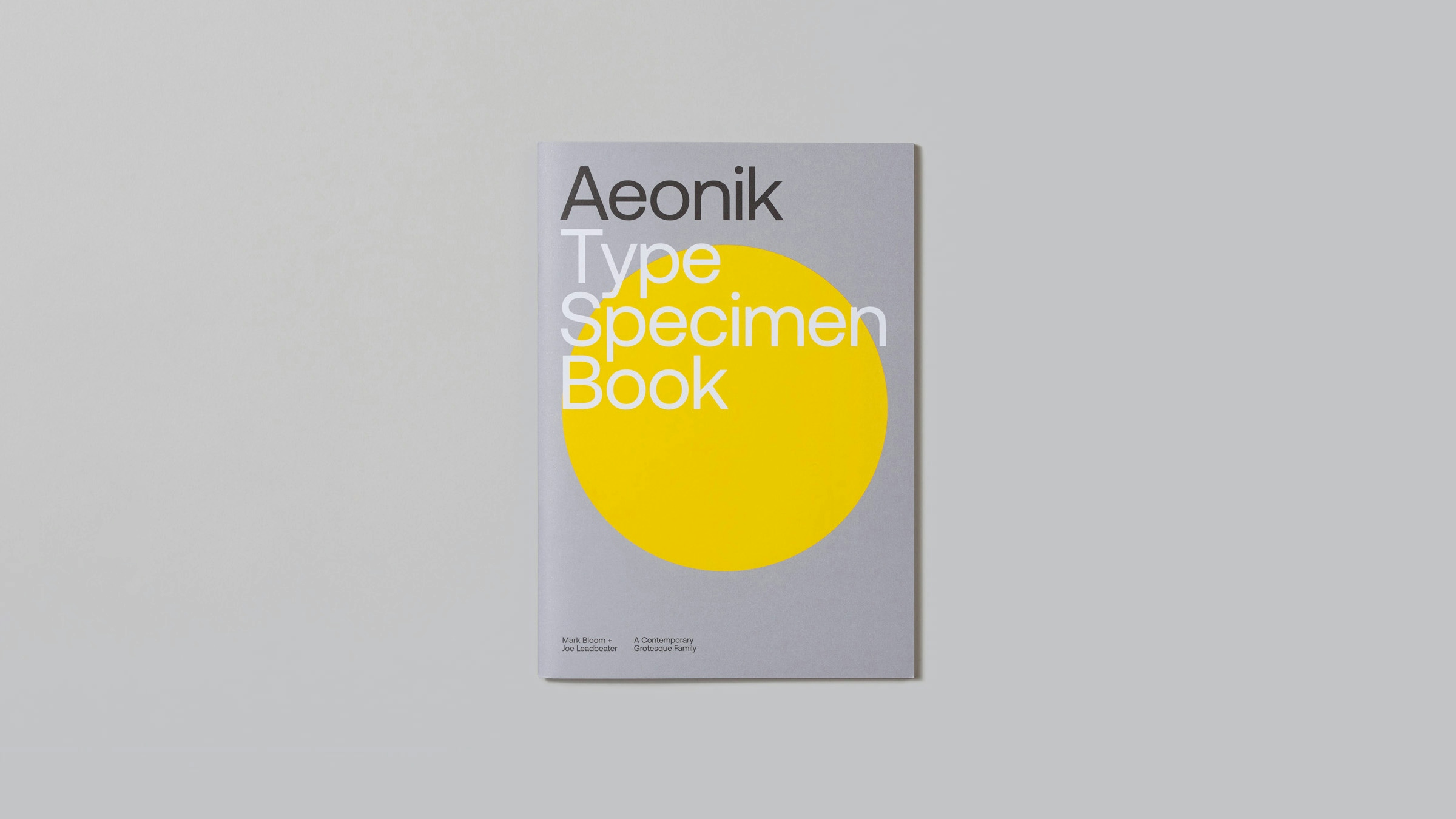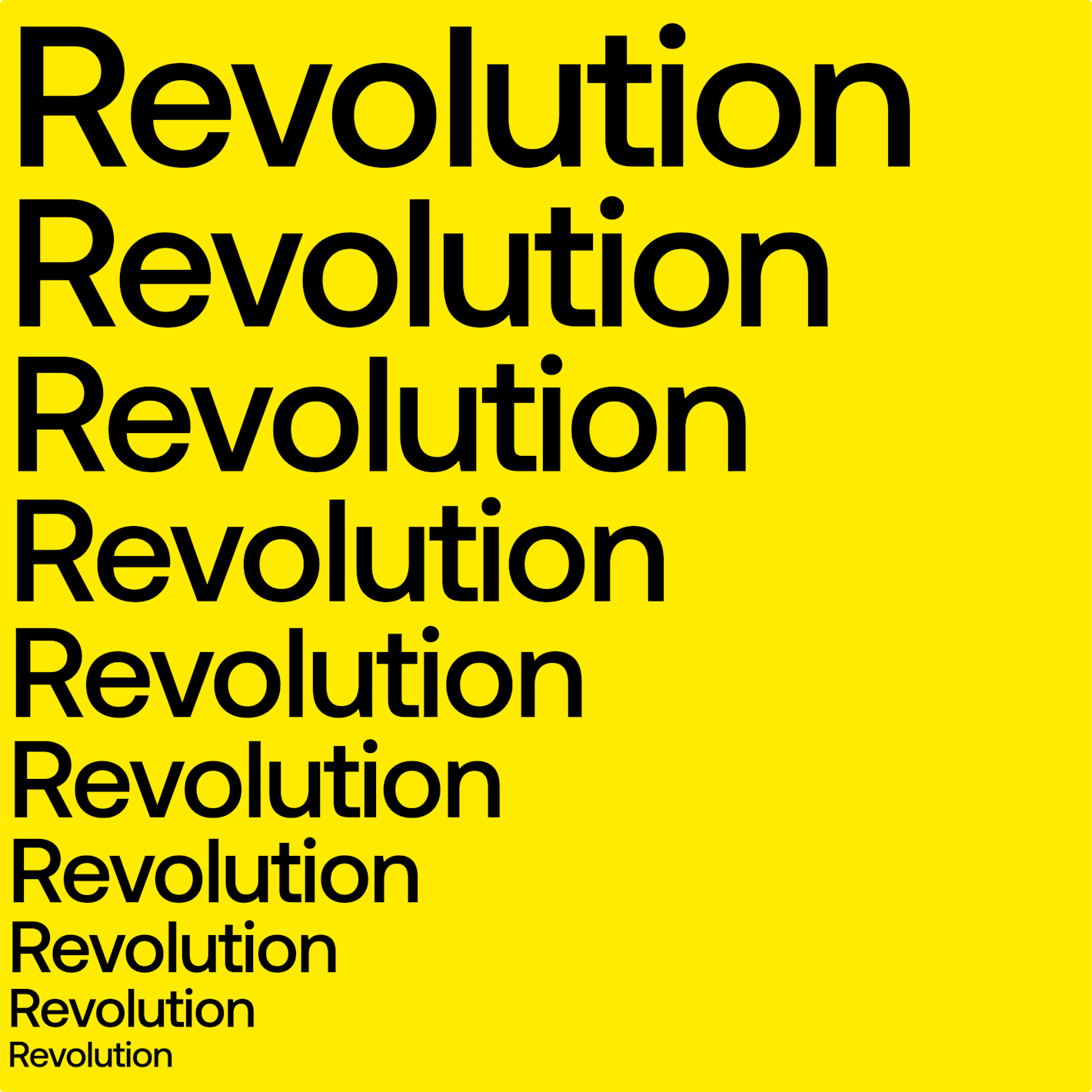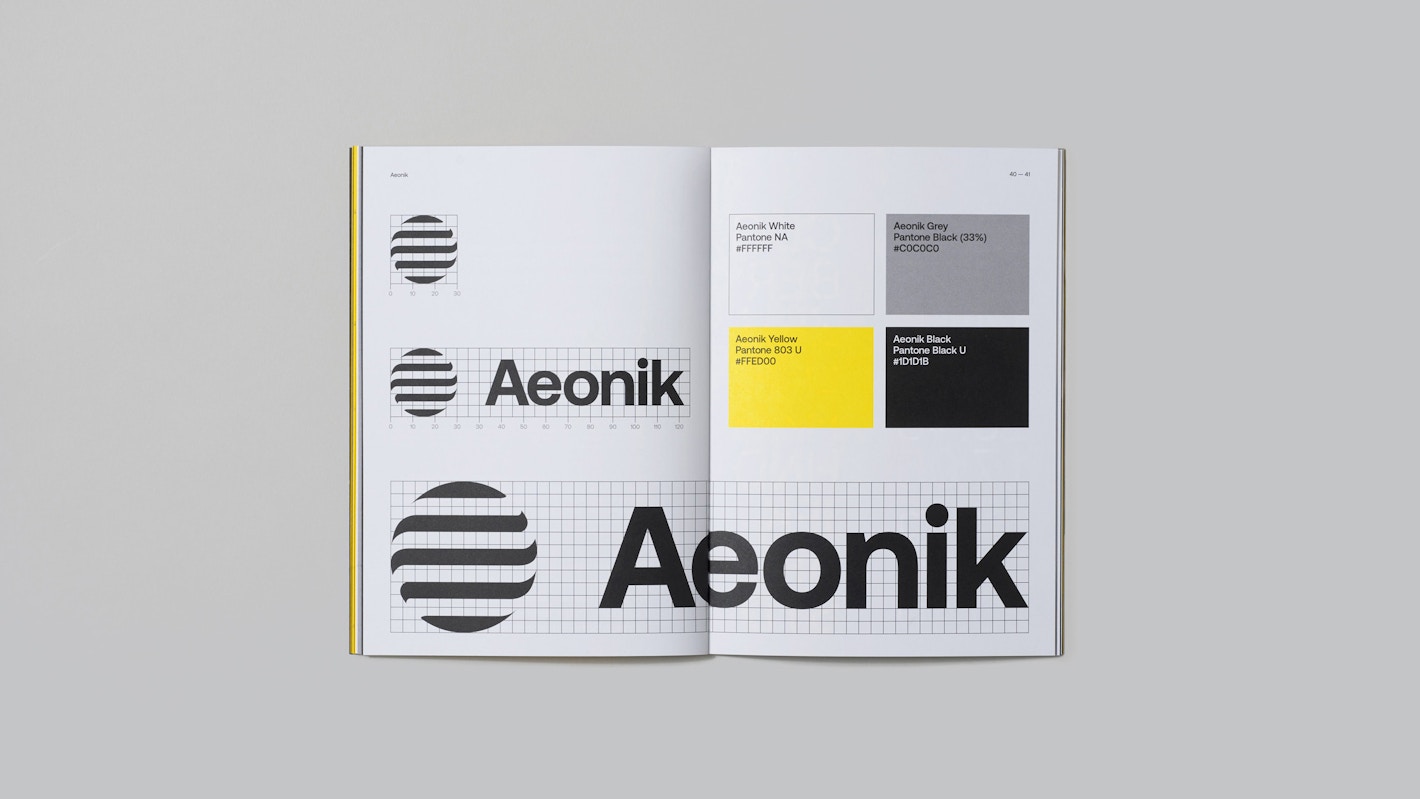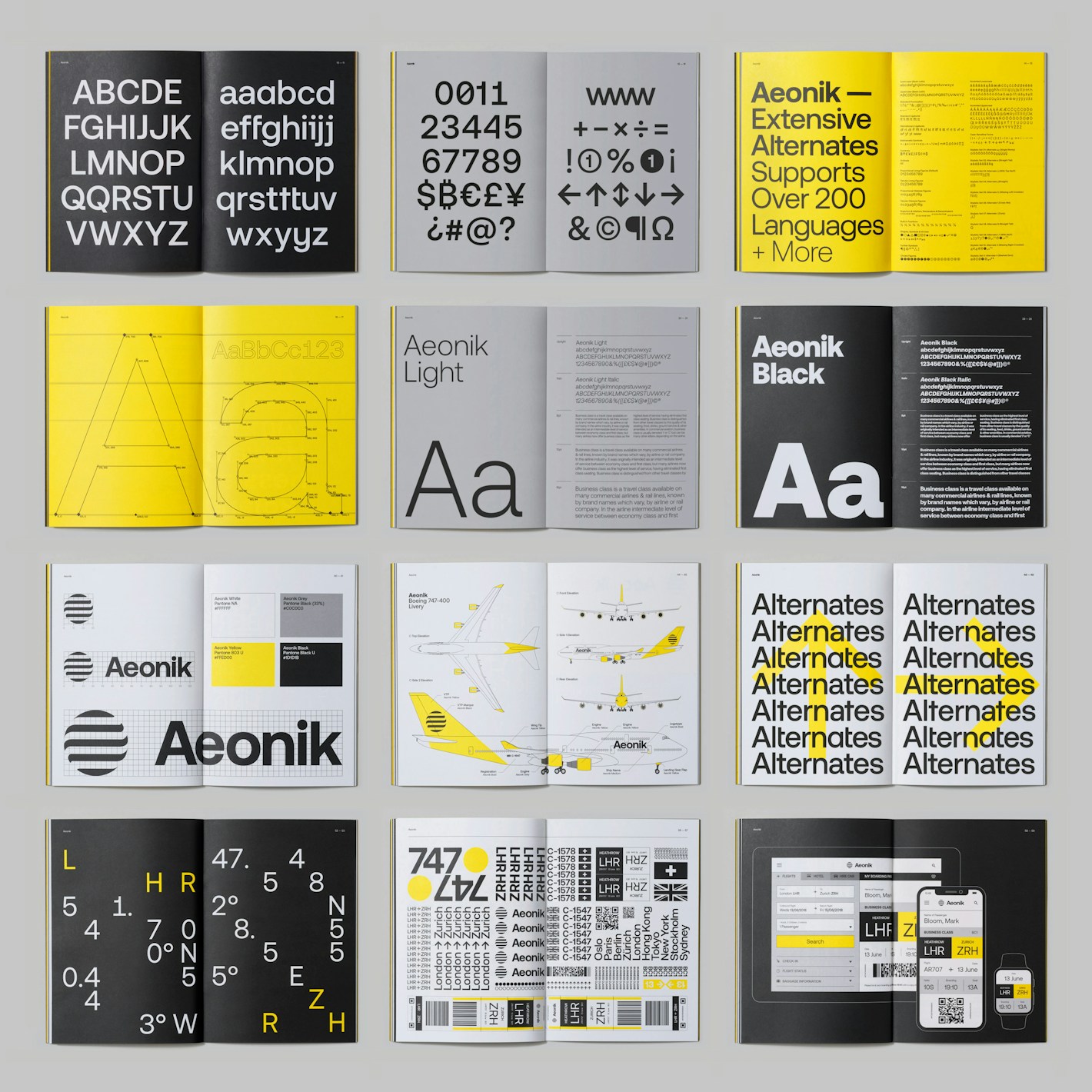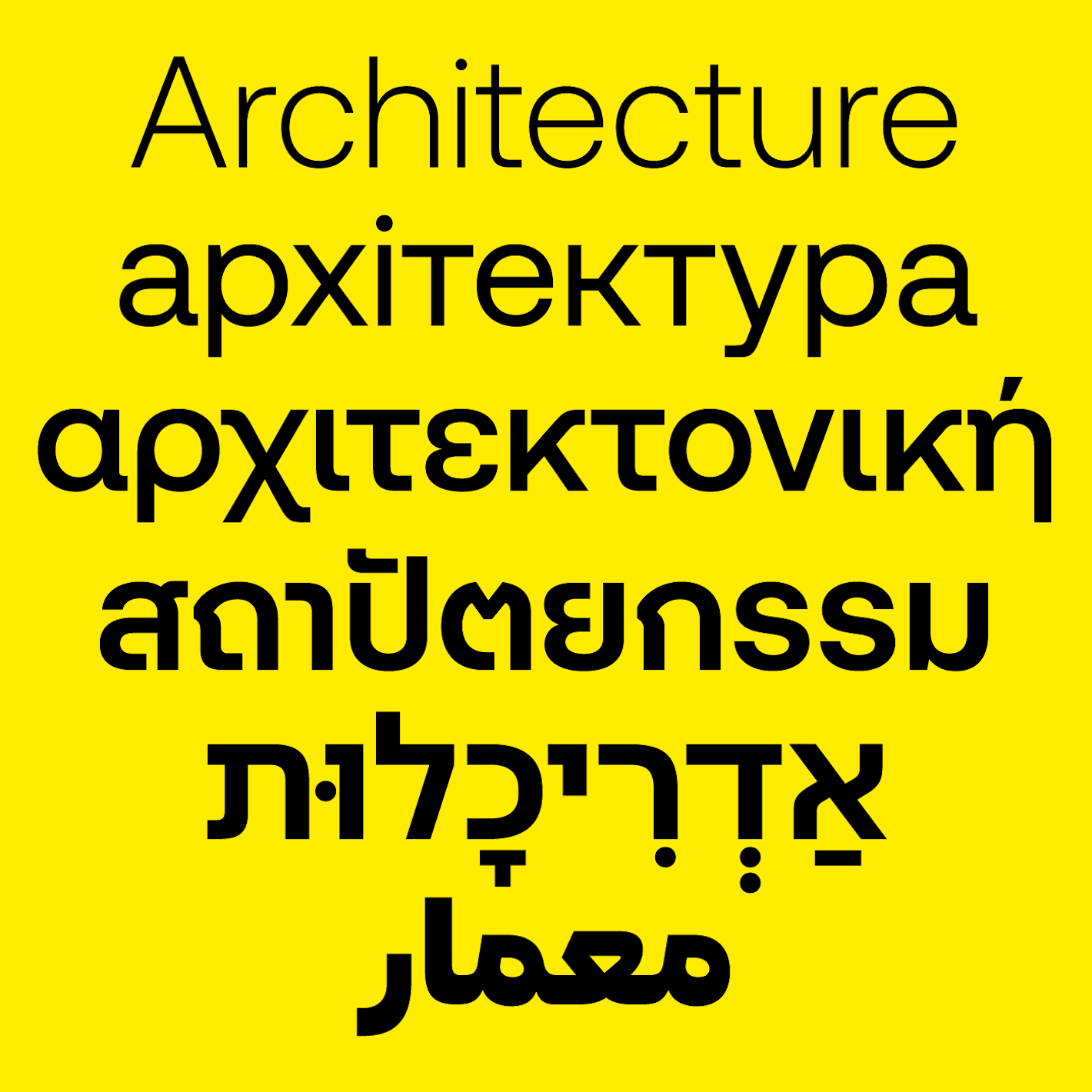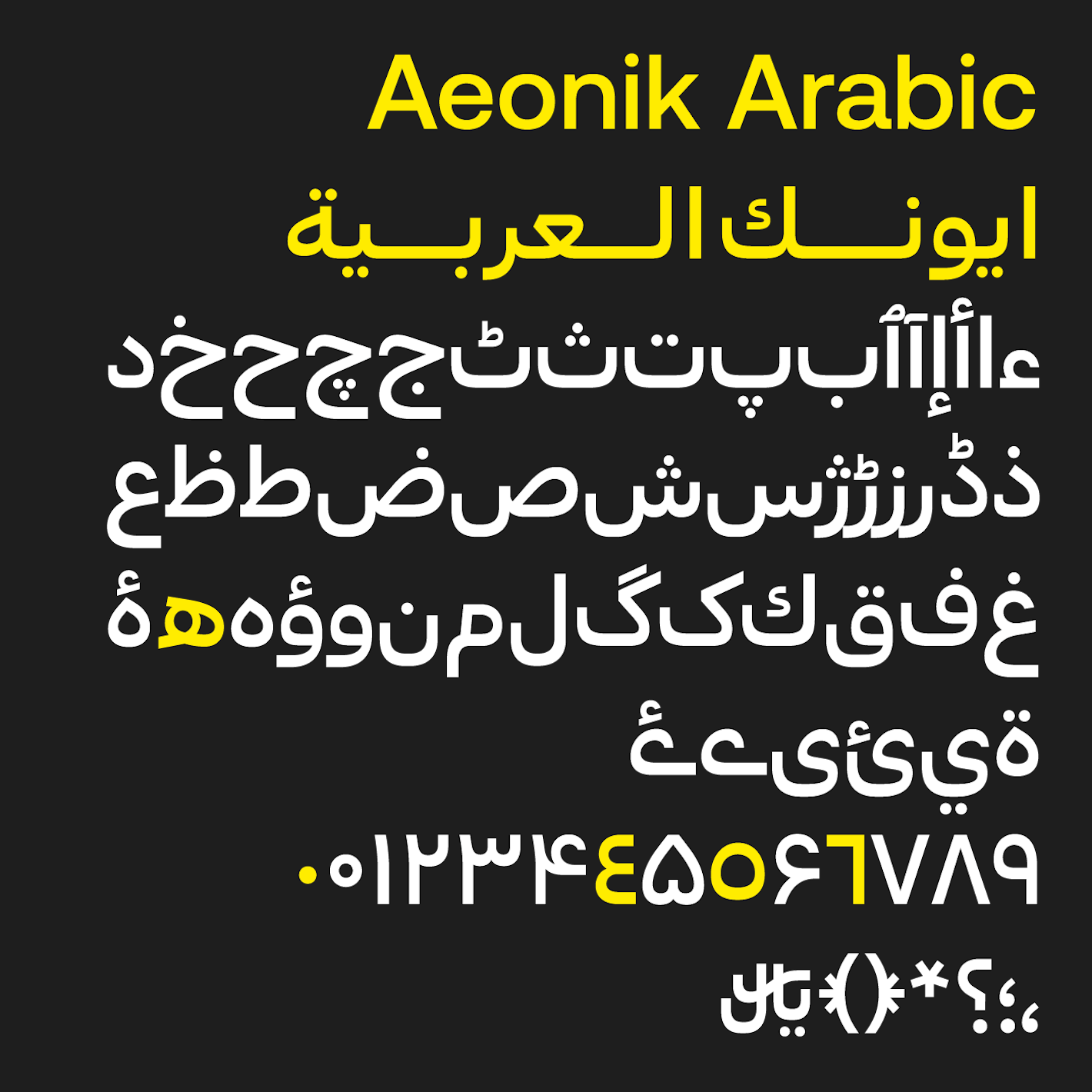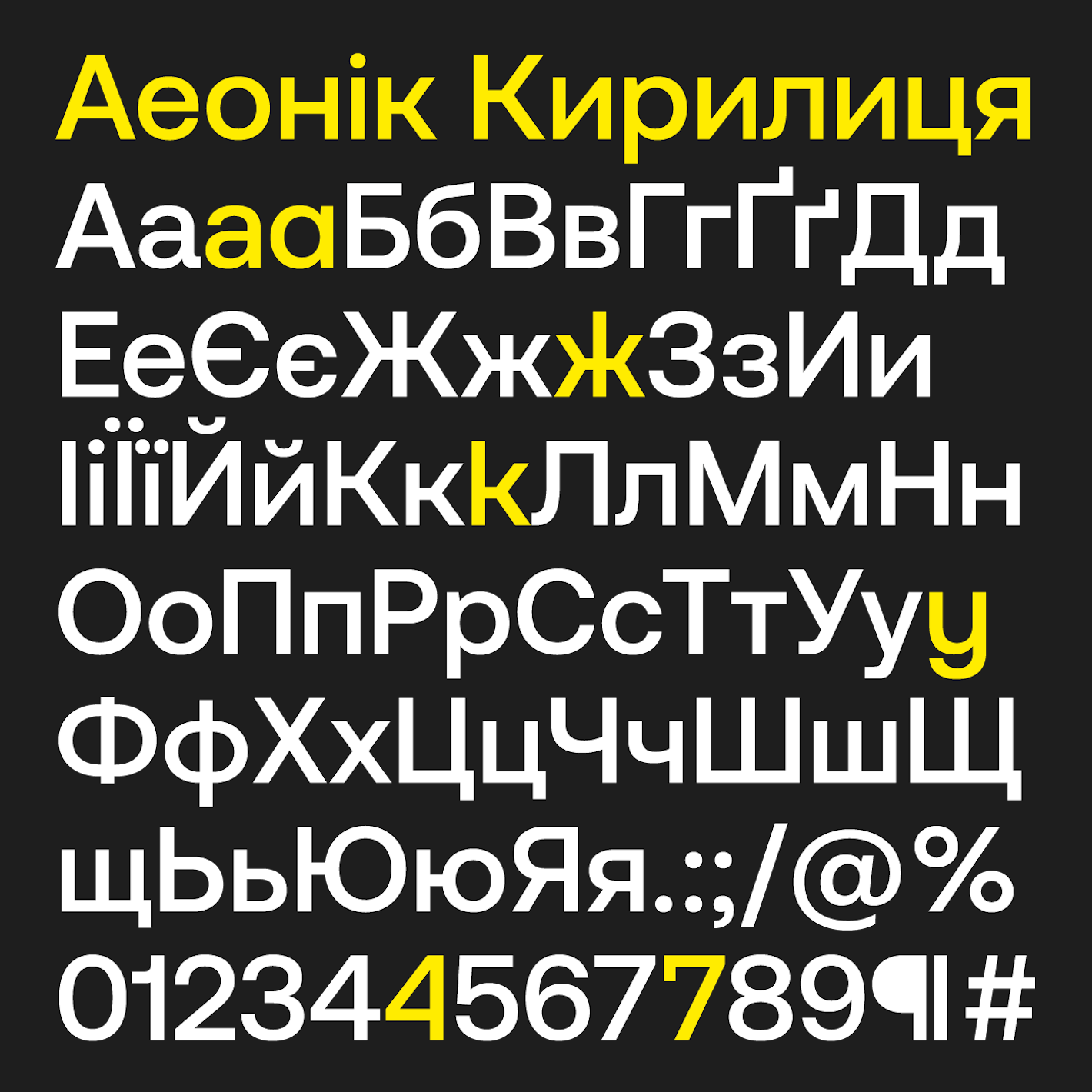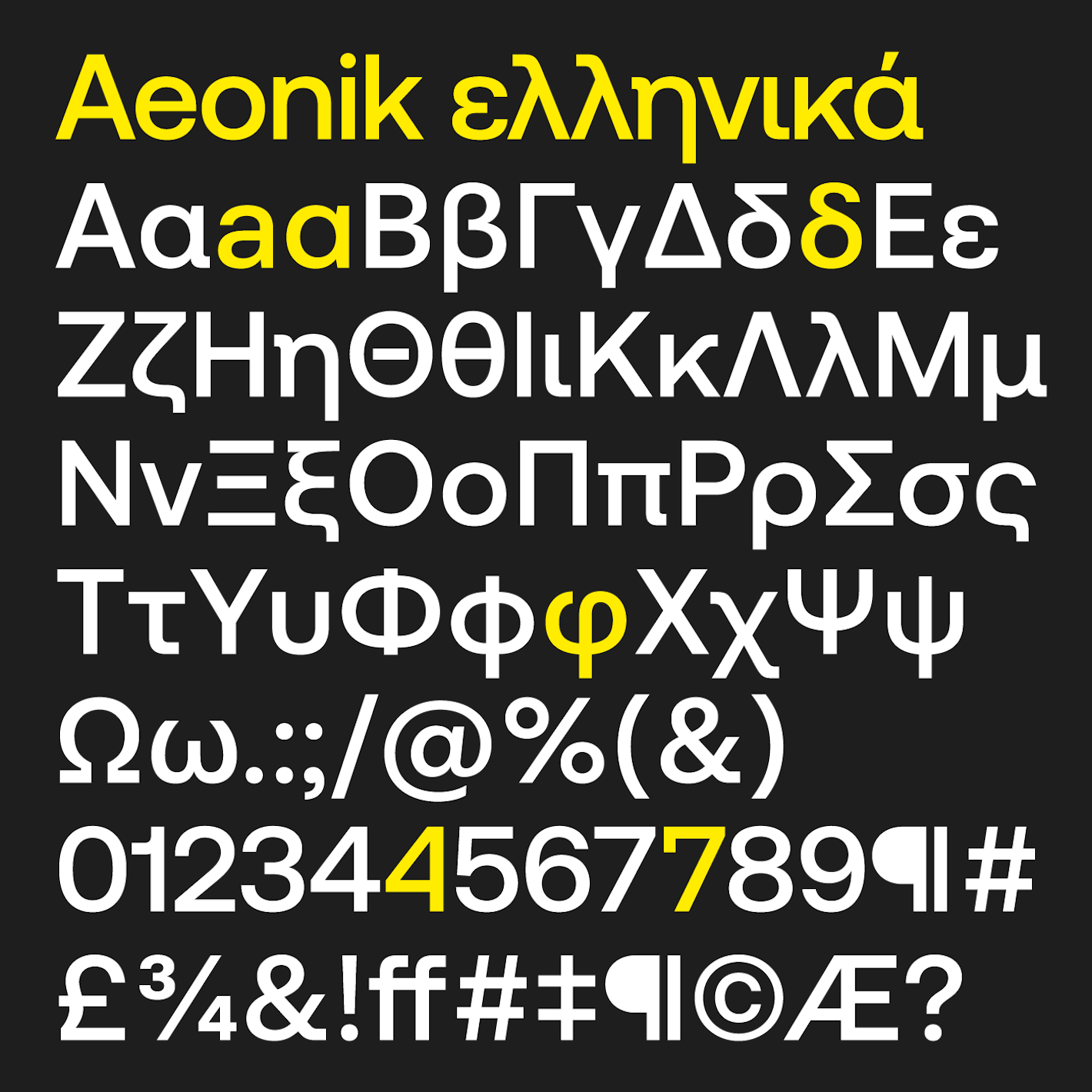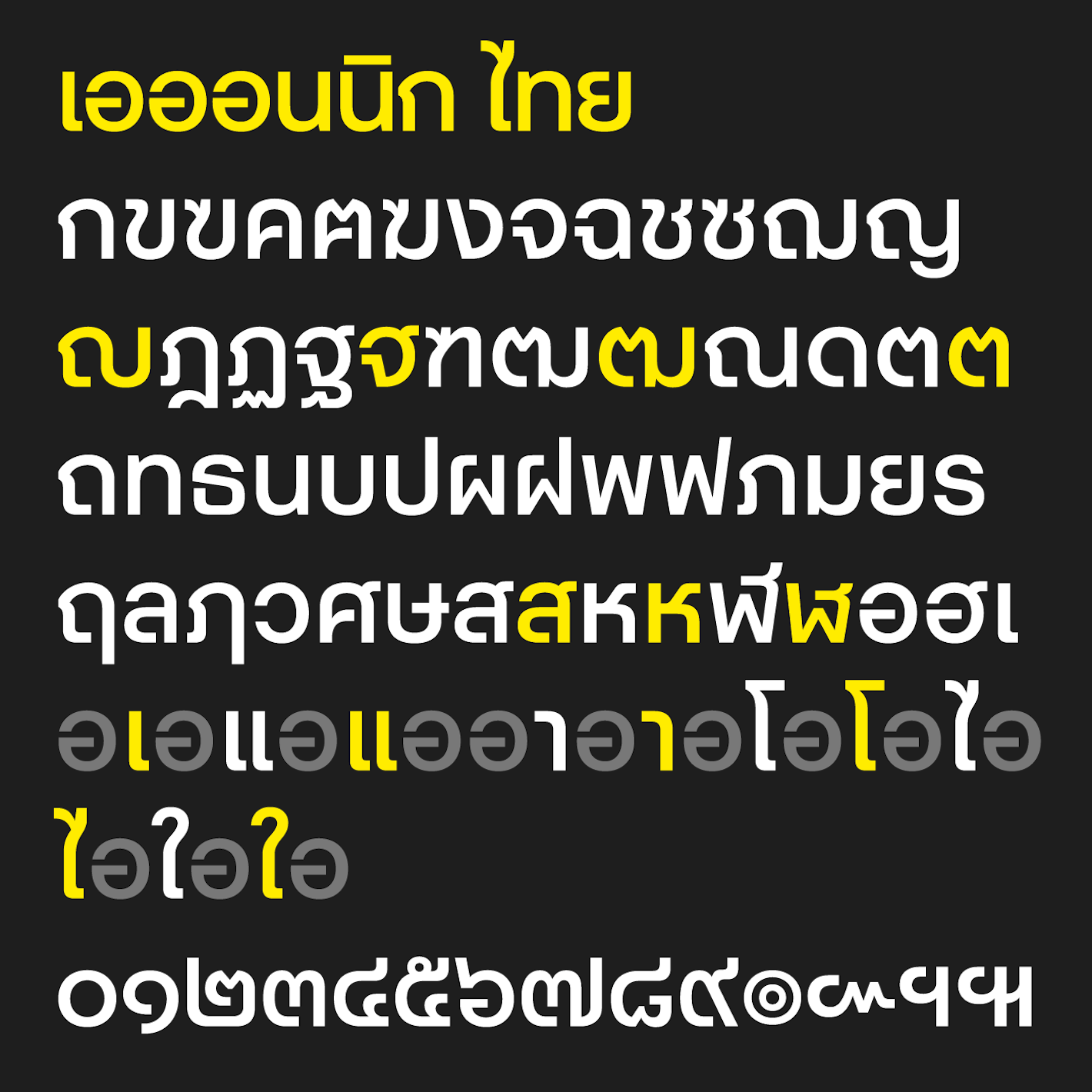
- Mark Bloom
- Joe Leadbeater
Arabic Design
Bahman Eslami and Maryam Golpayegani
Hebrew Design
Fontef Type Foundry
Thai Design
Cadson Demak
Hangul Design
Black Foundry
Aeonik is a versatile workhorse type family, crafted with mechanical precision by Mark Bloom and Joe Leadbeater. Conceived as a “neo-grotesque with a geometric skeleton,” it delivers rigidity in its strict perpendicular terminals – most evident in the letters ‘a, ‘t,’ ‘f,’ and ‘j.’ This is offset by the geometric roundness of letters like ‘c,’ ‘e,’ and ‘o,’. The balance between mechanical precision and timeless aesthetics has resonated with designers since its launch in 2021.
The family’s eight weights, ranging from the delicate Air to the commanding Black, are designed to tackle any creative challenge. For even greater control, variable font technology enables precise fine-tuning of weight. Italics are available for all weights (except Aeonik Arabic and Hangul), and language support can be selected during checkout.
Aeonik’s OpenType features include discretionary ligatures, old-style and tabular numerals, fractions, case-sensitive punctuation, symbols, geometric shapes, circled numerals, and arrows. Its multiple stylistic sets across Latin, Greek, and Cyrillic offer alternate designs for characters such as ‘a,’ ‘t,’ and ‘j.’ Additional numerical alternates make the family fully customizable, ready to meet the demands of any project.
Our best-selling typeface continues to evolve. In 2025, Aeonik expanded its language support to Vietnamese, Arabic, Hebrew, Thai and Hangul, complementing its existing Latin Extended, Cyrillic, and Greek character sets. Now covering over 340 languages, it’s perfectly suited to global branding needs.
Thanks to its meticulous design, Aeonik excels in large-scale applications such as logotypes and headlines, while also performing seamlessly in longer bodies of text. Its versatile weights and extensive character set make it ideal for creating cohesive and enduring brand identities. Aeonik’s widespread use by brands like Revolut, Eurosport, Alipay, and Virgin Hyperloop is a testament to its adaptability and timeless appeal.